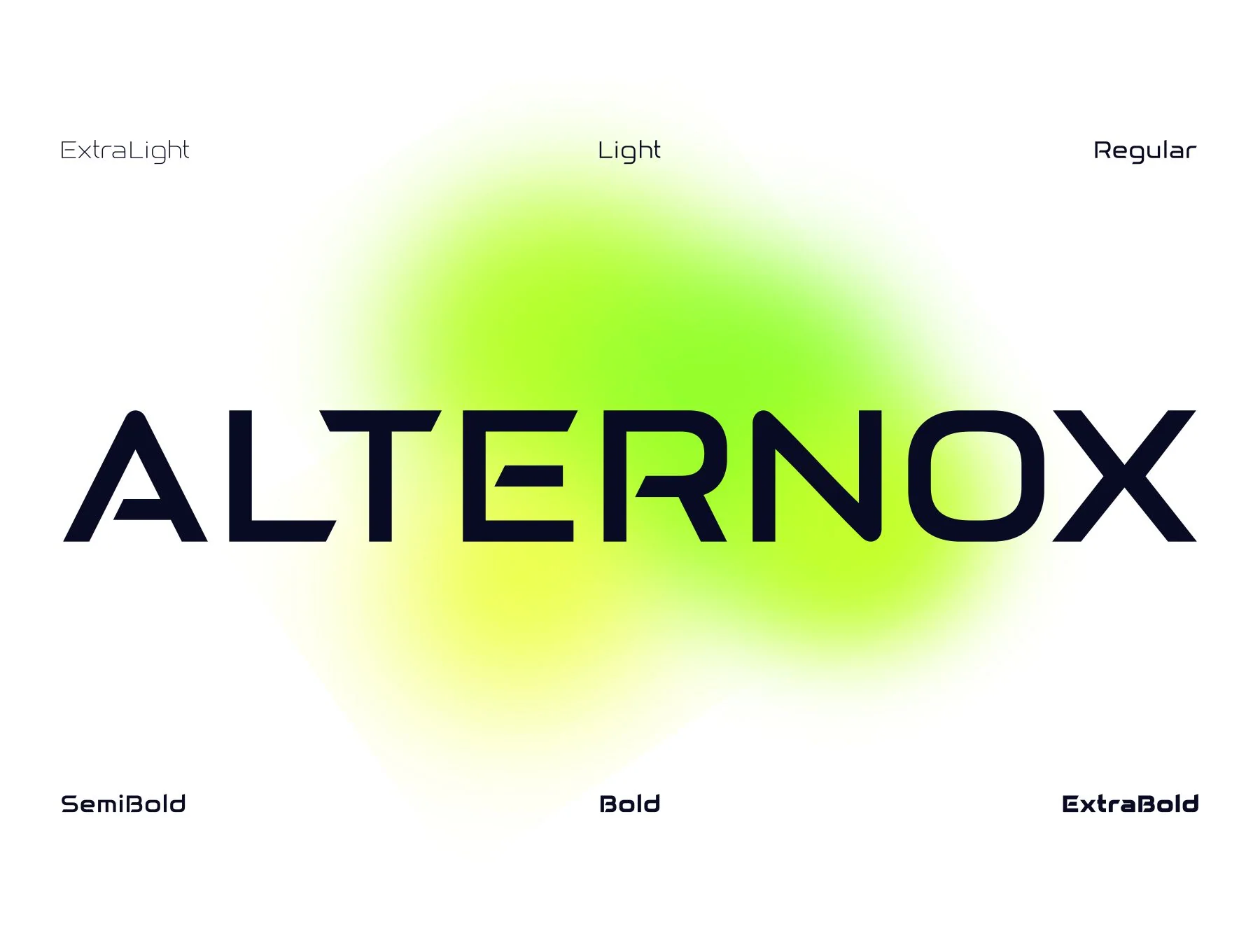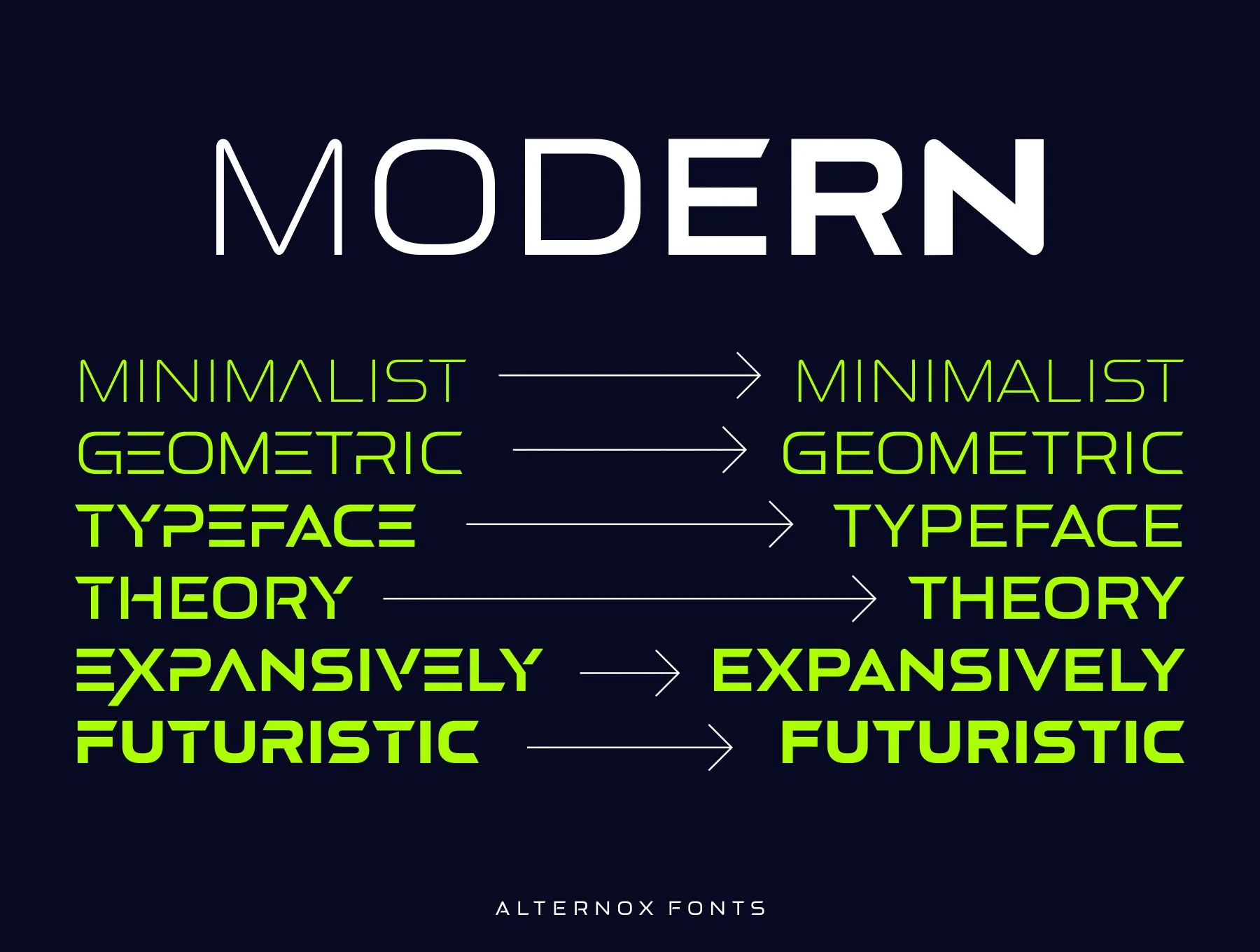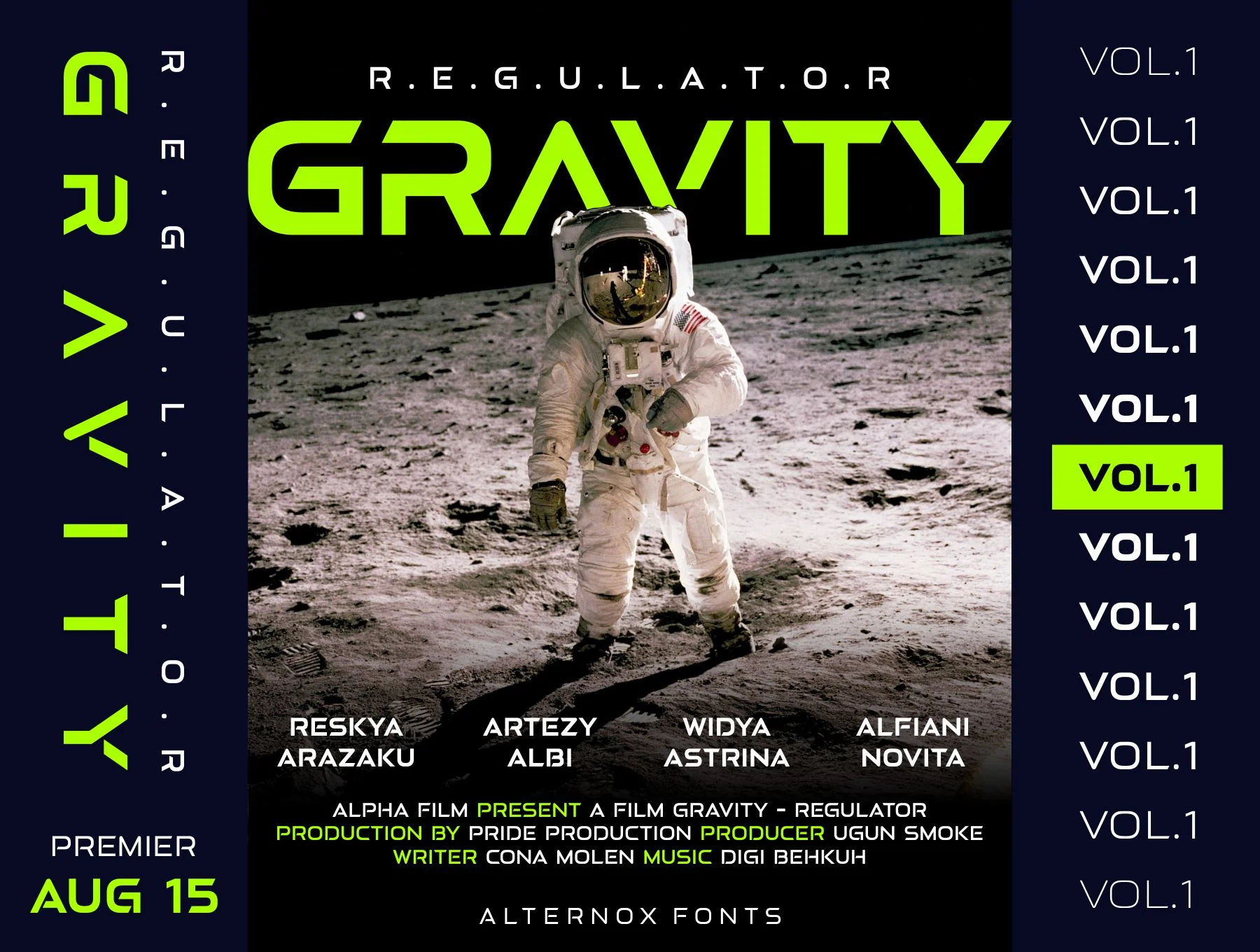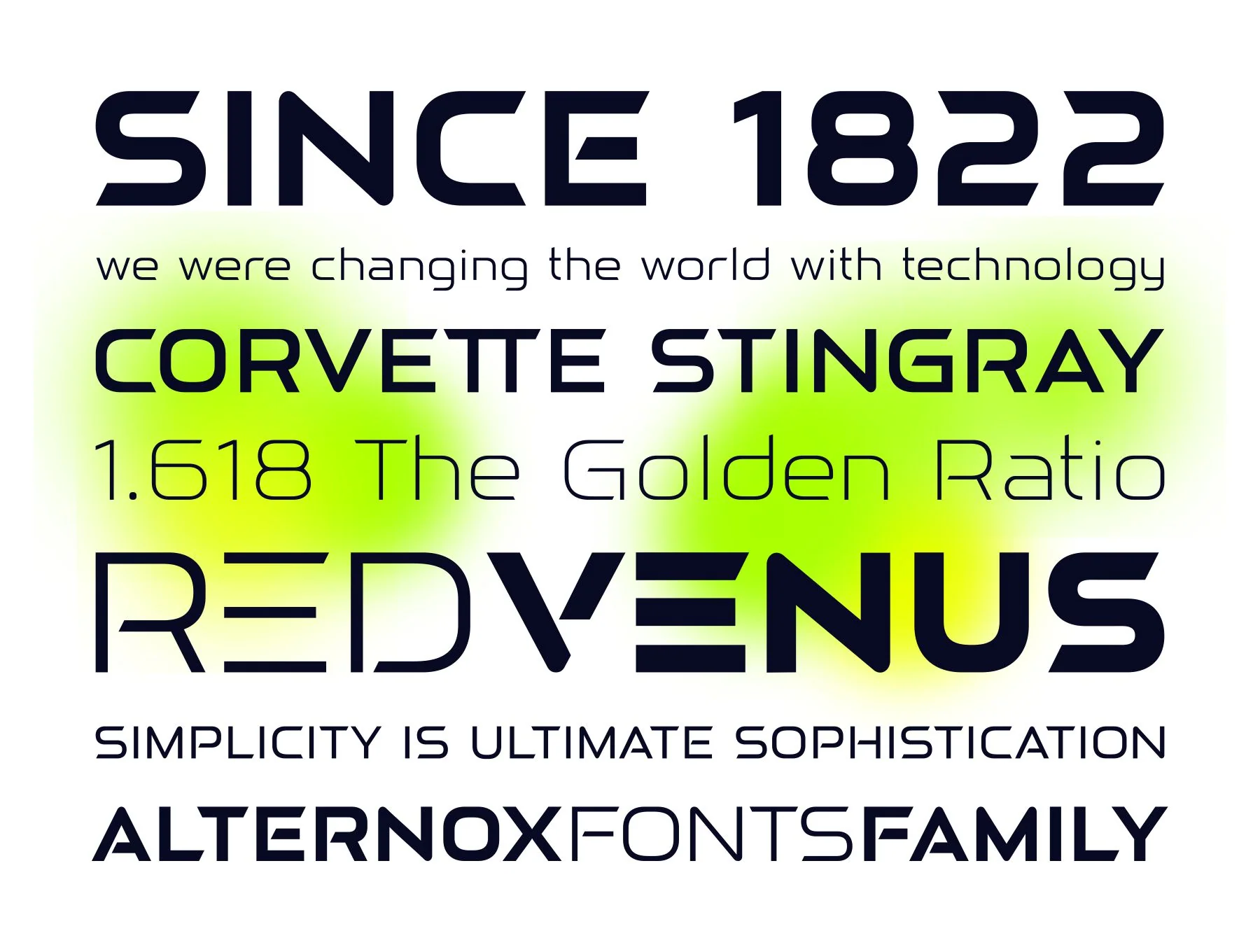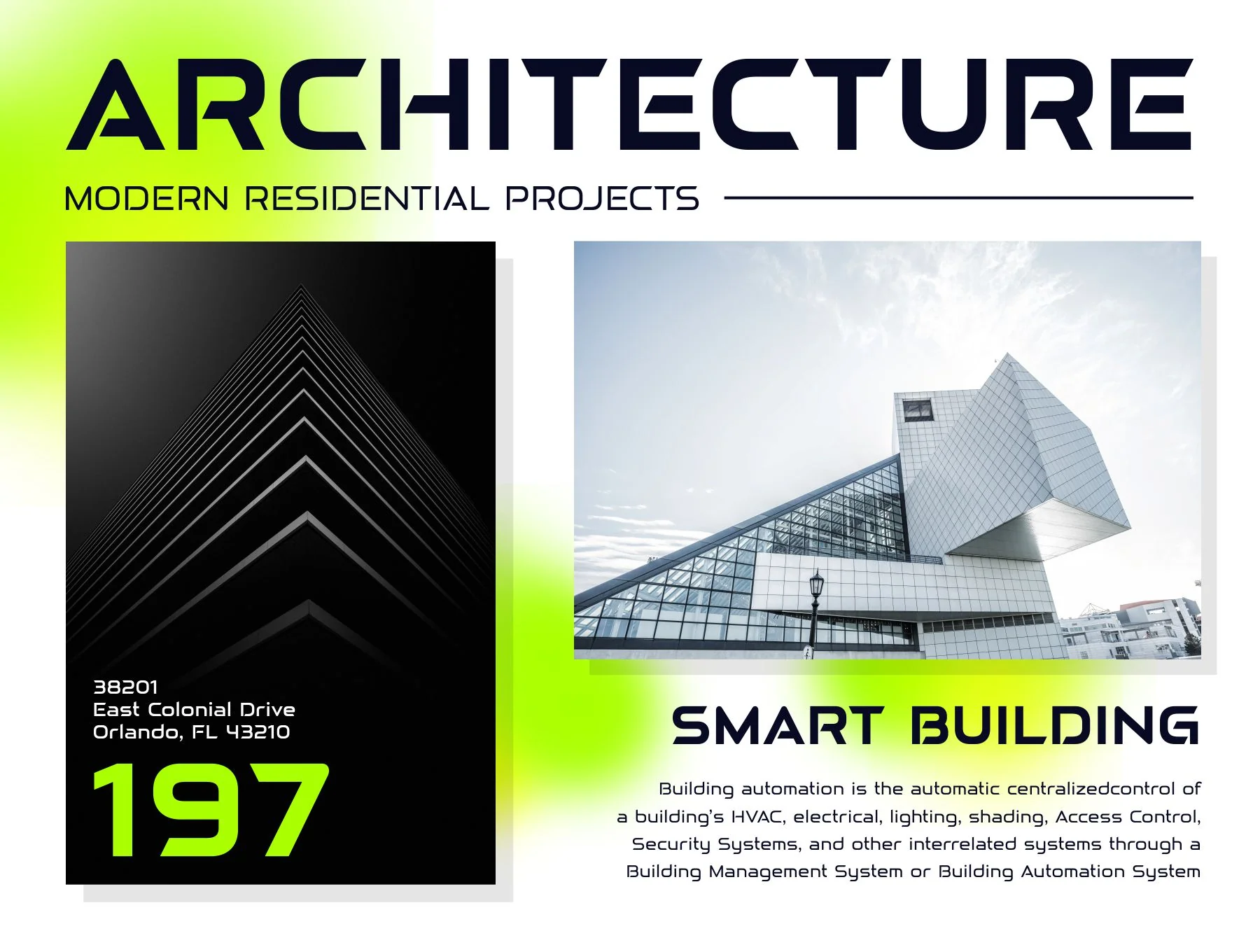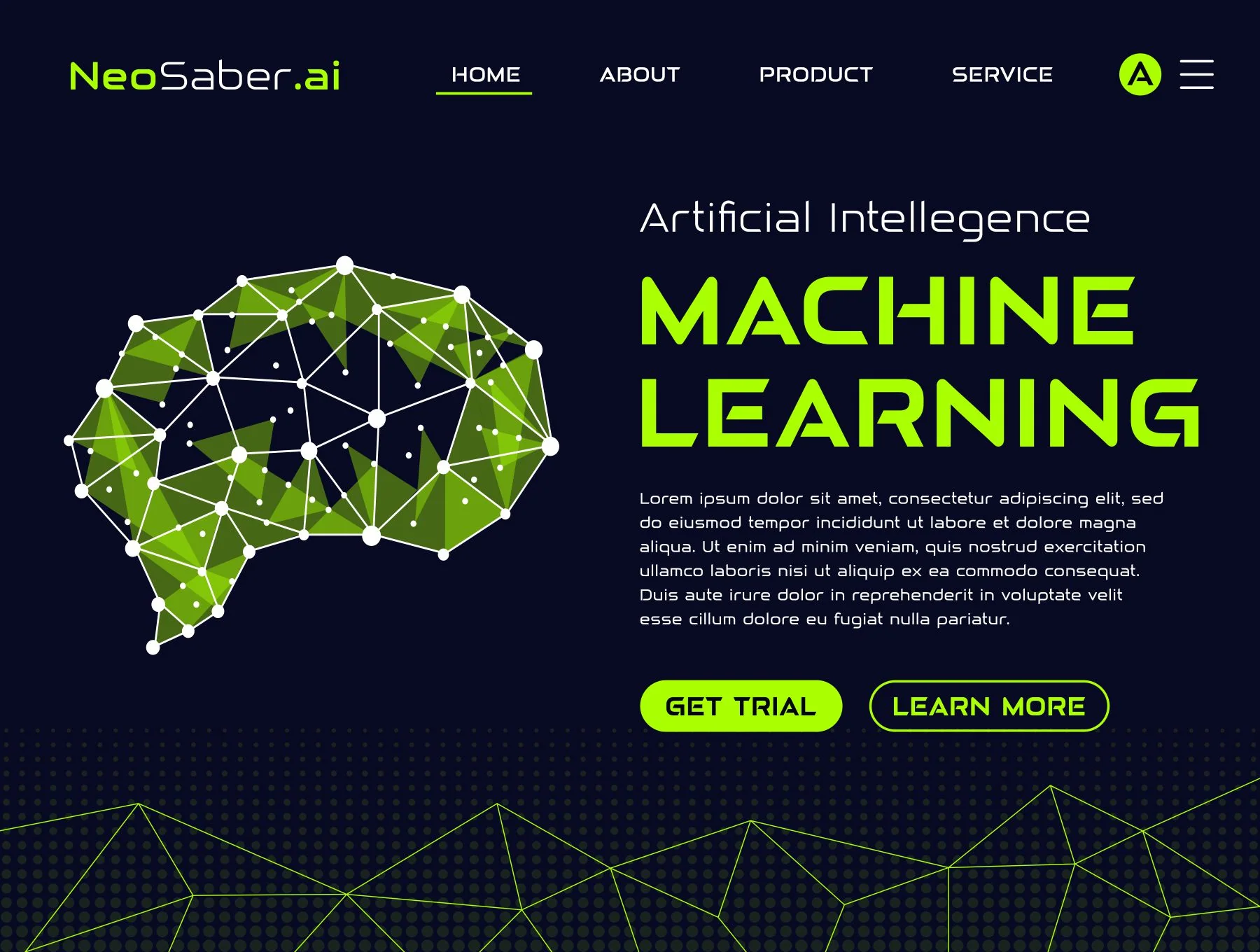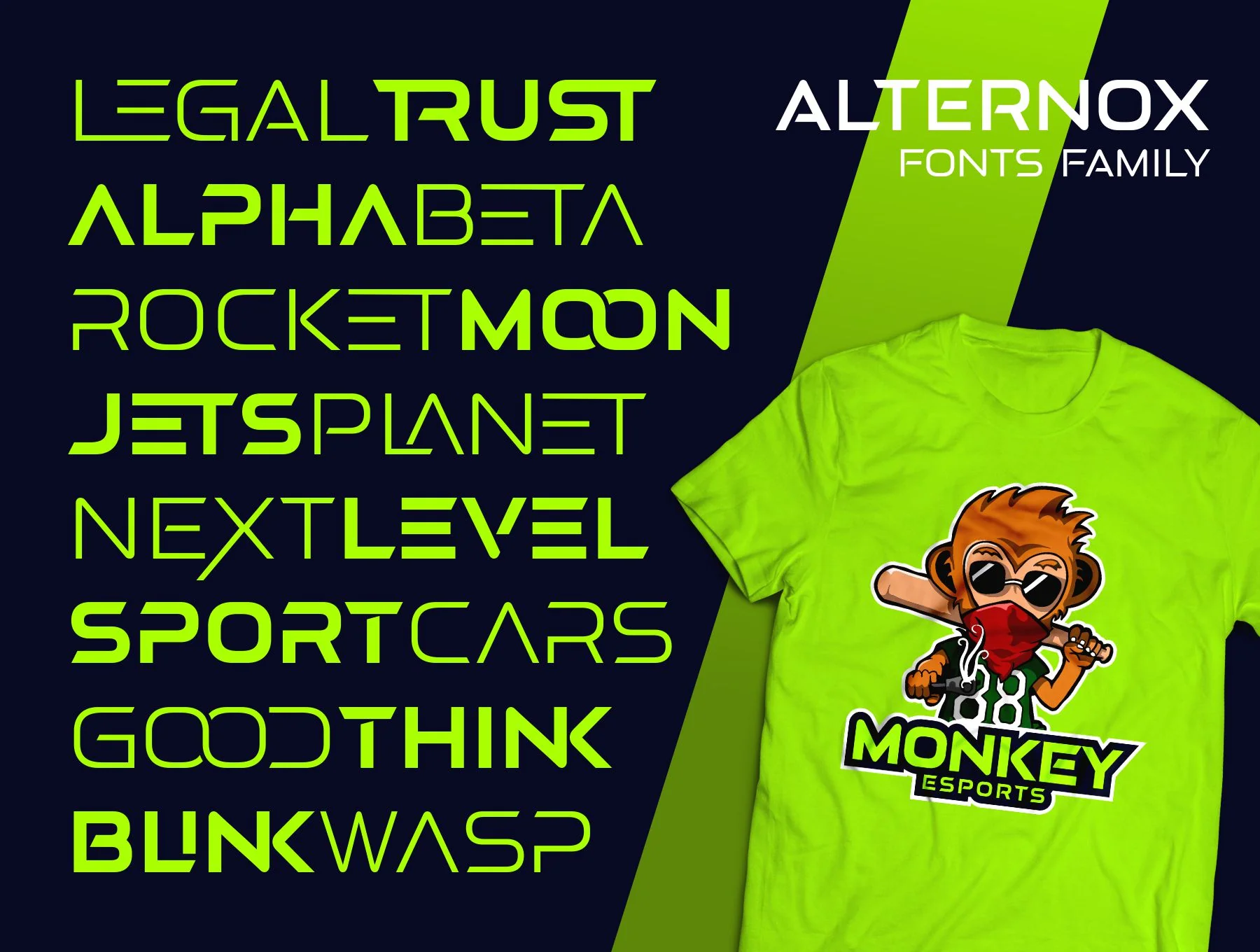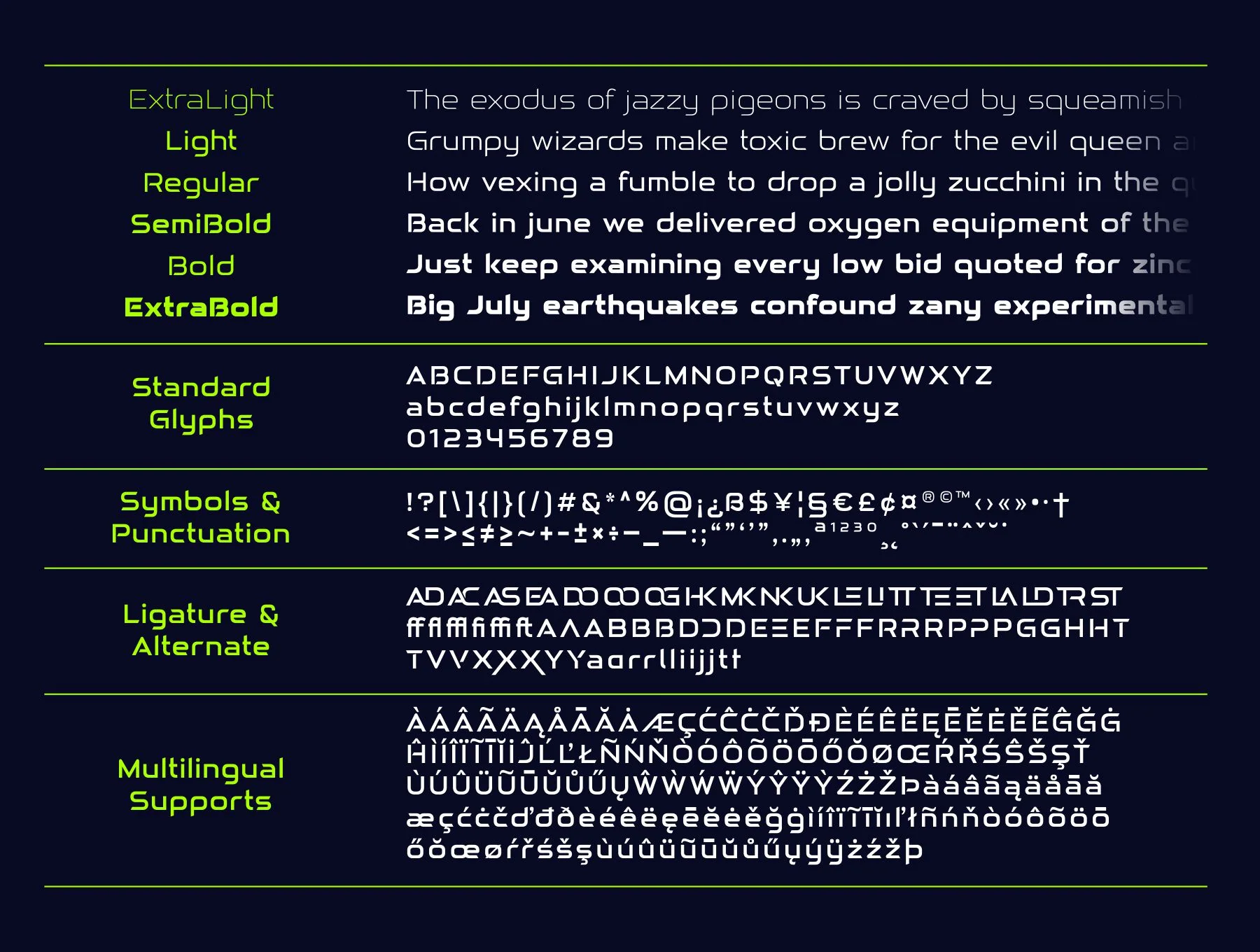
Alternox Fonts Family
Sleek Futuristic Display Font Family
Default glyph set
Standard weight
Numbers and punctuation marks
Alternate styles and ligatures
Alternox is a futuristic, versatile sans serif family built with refined geometric forms for sleek, professional designs. Ideal for logos, branding, tech projects, cards, websites, stationery, displays, sports and more. Includes 6 weights, OpenType features, kerning, ligatures, alternates, cases, numbers, punctuation and multilingual support.